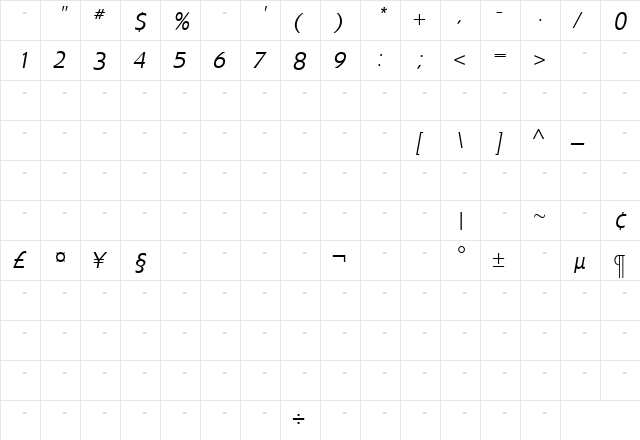
ExtensionLightItalicTab Roman
Design Context for ExtensionLightItalicTab Typeface
ExtensionLightItalicTab is a composed and adaptable typeface that performs quietly and consistently across a wide range of design contexts. The slanted form adds forward momentum and visual energy. The delicate stroke weight brings airiness and refinement to layouts.
Pro Tip: Try ExtensionLightItalicTab for annotation and caption copy alongside an upright companion — the contrast in angle creates a dynamic but ordered typographic system.